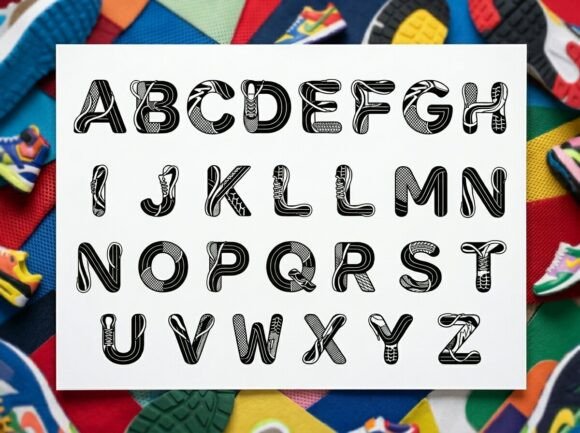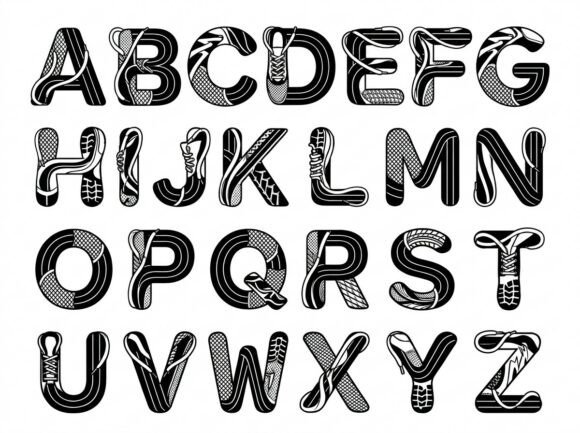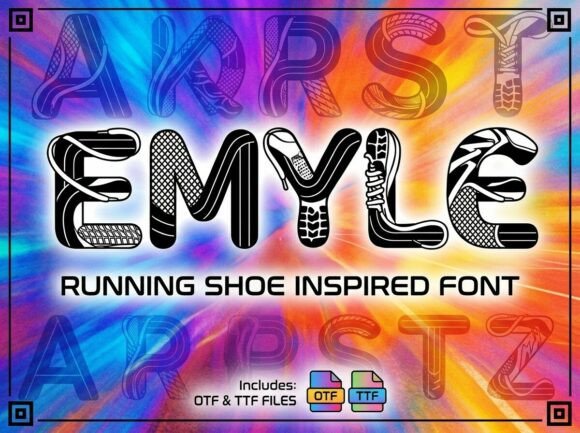
Introducing Emyle Font: A Stunning Decorative Display Font
Are you tired of using the same old fonts for your designs? Do you want to add a touch of uniqueness and creativity to your projects? Look no further than Emyle Font, a decorative display font that is sure to turn heads. In this article, we’ll take a closer look at Emyle Font, its features, and how it can elevate your designs.
Emyle Font is a stunning decorative display font designed to be the center of attention. With its unique artistic elements and strong visual personality, this font is perfect for creators who want to break away from the ordinary. Whether you’re working on a bold headline, artistic logo, or creative packaging, Emyle Font is the perfect choice.
Key Features of Emyle Font
- Unique Artistic Elements: Emyle Font features unique artistic elements that set it apart from other fonts. Each letter is carefully crafted to make a statement, making it perfect for high-impact headlines and logos.
- Strong Visual Personality: This font has a strong visual personality that is sure to grab attention. Its bold and eye-catching design makes it perfect for creative projects that require a touch of drama.
- Versatile: Emyle Font is versatile enough for use in a variety of projects, from bold headlines and artistic logos to creative packaging.
- Professional and Polished Finish: Despite its bold design, Emyle Font maintains a professional and polished finish, making it suitable for use in a range of applications.
Before purchasing Emyle Font, please note that it is an ALL-CAPS (Uppercase Only) display typeface. This means that it does not include lowercase letters. It is specifically designed for high-impact headlines, logos, and decorative initials where every letter is a work of art.
Why Choose Emyle Font?
So why choose Emyle Font for your next project? Here are just a few reasons:
- Add a Touch of Uniqueness: Emyle Font is a unique and creative font that will add a touch of personality to your designs.
- Stand Out from the Crowd: With its bold and eye-catching design, Emyle Font is sure to make your designs stand out from the crowd.
- Perfect for Creative Projects: Whether you’re working on a logo, headline, or packaging, Emyle Font is the perfect choice for creative projects that require a touch of drama.
Tips for Using Emyle Font
Here are a few tips for using Emyle Font in your designs:
- Use it for Headlines: Emyle Font is perfect for headlines and titles where you want to grab attention.
- Pair it with a Simple Font: For body text, pair Emyle Font with a simple font to create contrast and make your design more readable.
- Experiment with Colors: Emyle Font looks great in bold colors, so don’t be afraid to experiment and find the perfect color for your design.